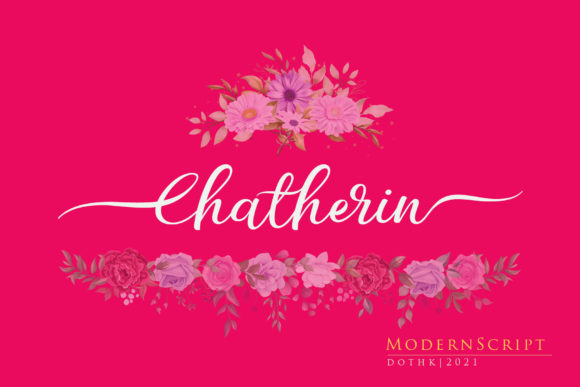
Chatherin: Elevate Your Brand with a Luxurious Handwritten Font
As a small business owner, I recently found myself in need of a fresh, elegant touch for my café’s new menu. After some research, I stumbled upon Chatherin, a beautiful light handwritten font that instantly caught my eye. This Script Handwritten font has a unique feel and a stunning impact, making it perfect for adding a luxury spark to any design project.
Chatherin for Café Menus and Elegant Branding
When I first used Chatherin for our café menu, the transformation was remarkable. The font's light, flowing lines gave the menu an upscale, sophisticated look. Our customers immediately noticed the change, and the feedback was overwhelmingly positive. The elegance of Chatherin made our café stand out, creating a memorable dining experience from the moment they picked up the menu.
Chatherin in Logo Design and Product Labels
After the success with the menu, I decided to incorporate Chatherin into our logo and product labels. The font’s luxurious feel perfectly complemented our brand identity, making our packaging and branding materials look more polished and professional. For a small business, this level of consistency and attention to detail can make a significant difference in how customers perceive your products.
Chatherin for Social Media Graphics and Online Shop Banners
One of the most versatile aspects of Chatherin is its adaptability across various platforms. We used it to create eye-catching social media graphics and online shop banners. The font’s unique style and readability, even on smaller screens, helped us maintain a consistent and recognizable brand presence. Whether it’s a Facebook post or an Instagram story, Chatherin adds a touch of elegance that resonates with our audience.
Chatherin for Thank-You Cards and Customer Engagement
Another area where Chatherin truly shines is in thank-you cards and customer engagement materials. The handwritten, personal touch of the font makes these small gestures feel more genuine and heartfelt. Our customers appreciate the extra effort, and it helps build a stronger, more loyal customer base. The font’s ability to convey warmth and gratitude is a testament to its versatility and charm.
Chatherin for Packaging Design and Visual Consistency
For our product packaging, Chatherin provided the perfect balance of style and functionality. The font’s clean, elegant lines worked beautifully on everything from candle jars to gift boxes. It’s not just about aesthetics; the font’s readability and visual consistency across different packaging sizes and materials ensure that our brand message is clear and impactful. This consistency is crucial for building a strong, recognizable brand.